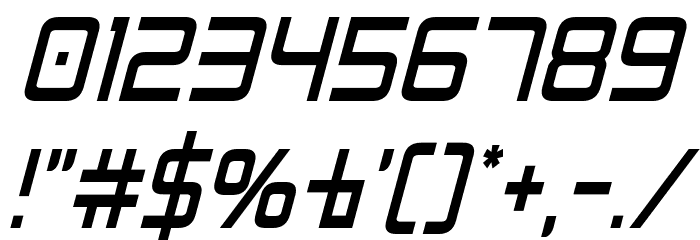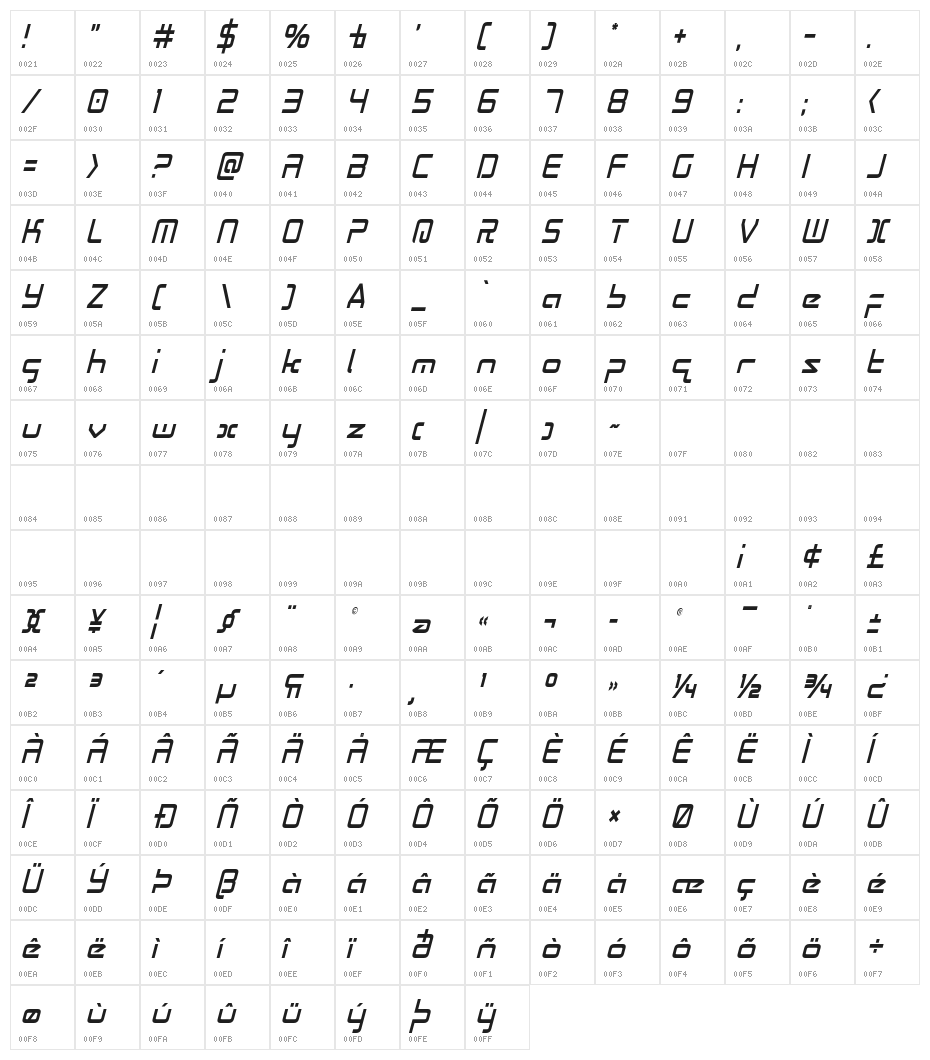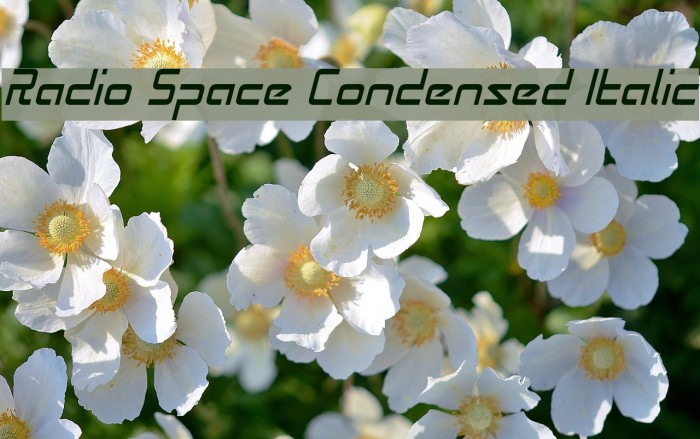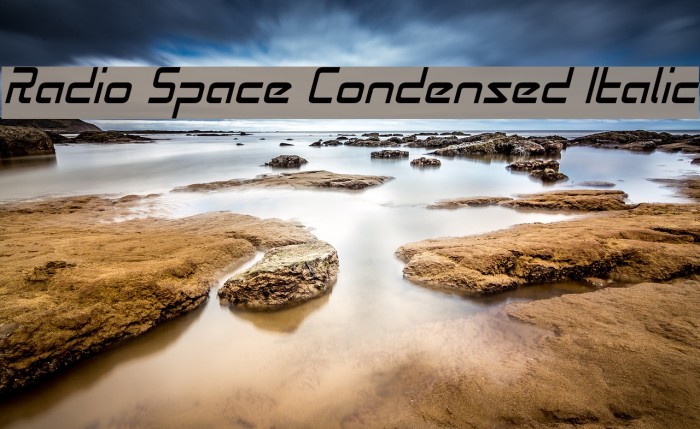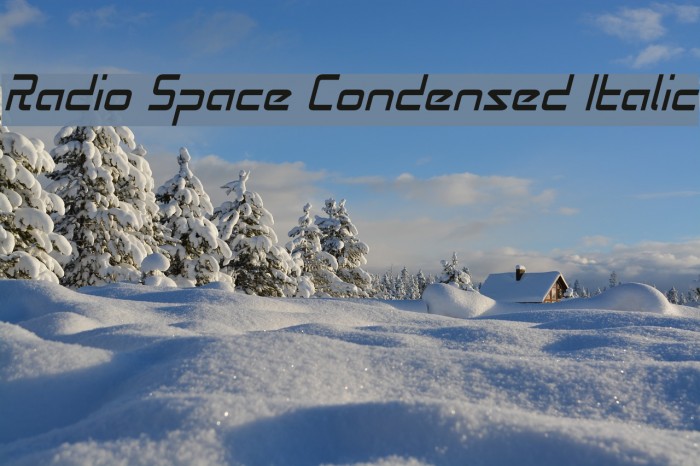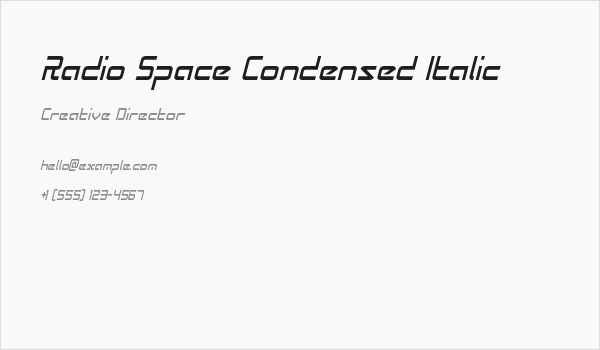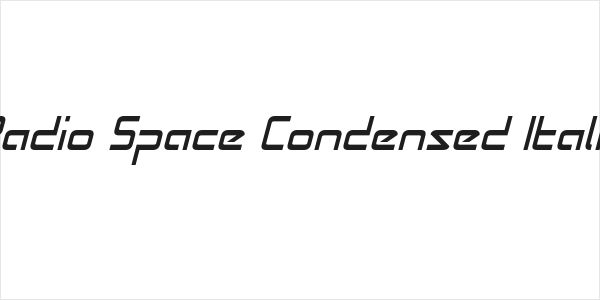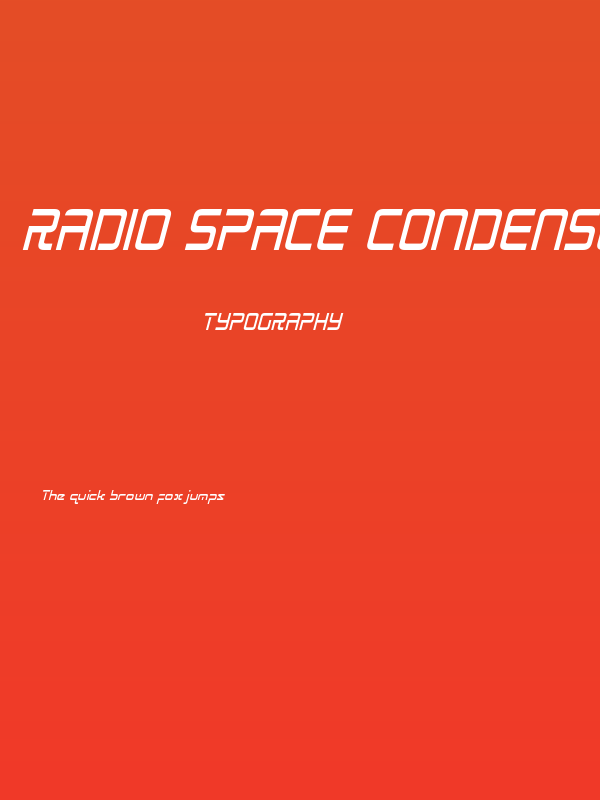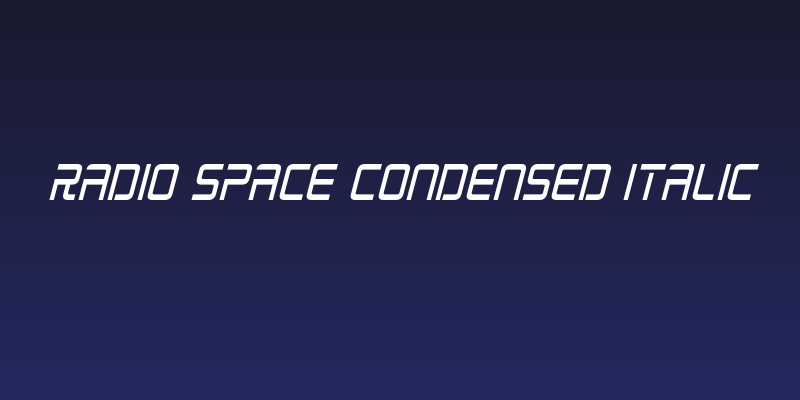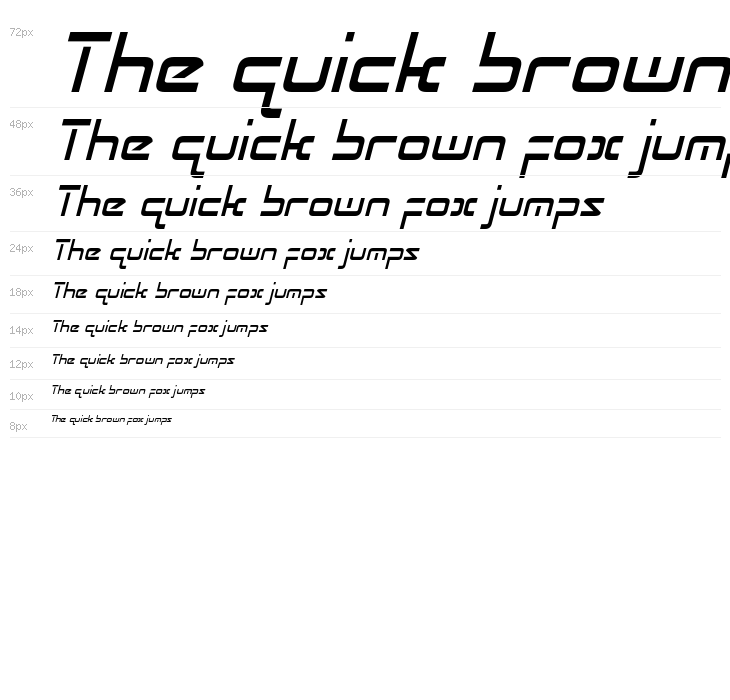
Radio Space Condensed Italic Font
Radio Space Condensed Italic Description
This font features a sleek, futuristic design with a condensed and italicized style. The characters are elongated and slightly slanted, giving a sense of motion and modernity. The strokes are consistent in thickness, creating a uniform appearance across all characters. The font maintains a clean and sharp look, with angular edges and minimal curves, making it ideal for tech-oriented or contemporary designs. The spacing between characters is tight, enhancing the compact and streamlined aesthetic. This font is versatile, suitable for both digital and print media, and can effectively convey a sense of innovation and forward-thinking.
| Use Case | Headlines, Logos, Digital Media |
| Proposed Projects | Ideal for technology branding, sci-fi movie posters, modern advertising, and innovative product packaging. |